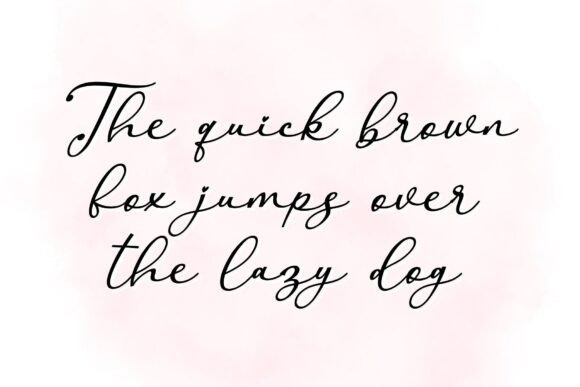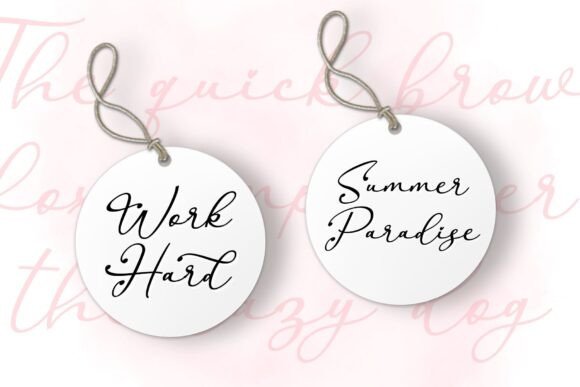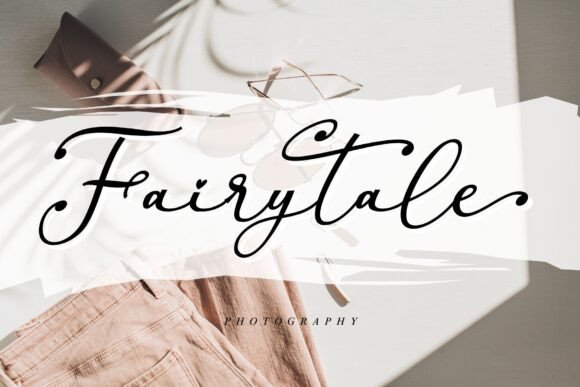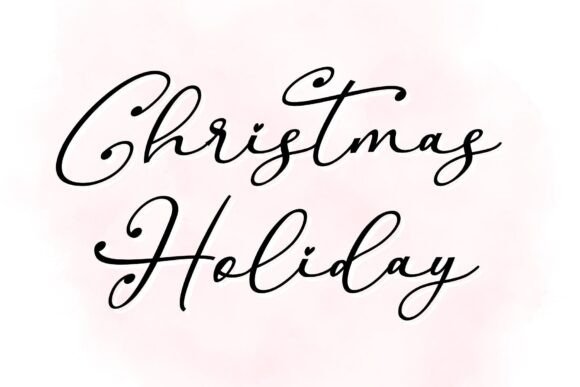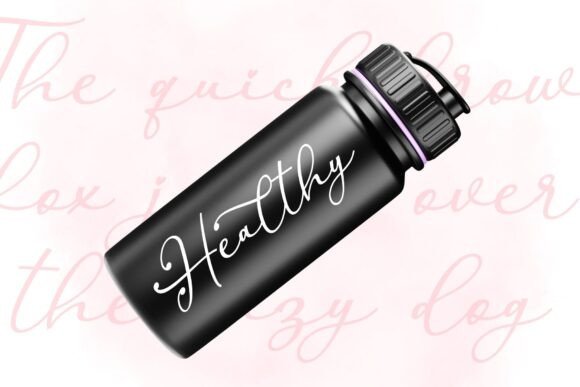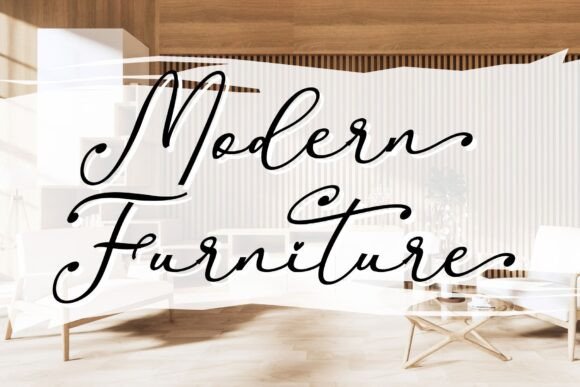
The Charm of Handwritten Fonts: Unlocking the Power of Adoretime Font
As a designer, have you ever stumbled upon a font that instantly sparks creativity and sets your imagination ablaze? For me, it was the moment I laid eyes on Adoretime Font. Its unique blend of simplicity and elegance was love at first sight, and I knew I had to learn more about this captivating handwritten font.
Adoretime Font is more than just a pretty face – it’s a versatile tool designed to cater to a broad spectrum of design requirements. Whether you’re working on a wedding invitation, a social media campaign, or a product label, Adoretime Font’s charm is sure to elevate your designs and leave a lasting impression. Its value lies in its ability to add a touch of personality and whimsy to any project, making it a must-have for designers looking to take their work to the next level.
- Unique Characteristics: This font features a unique blend of modern and vintage elements, with elegant lines, subtle flourishes, and a touch of sophistication.
Adoretime Font Review
First impressions are everything, and the Adoretime Font doesn’t disappoint ✨. The elegant, cursive design exudes a sense of sophistication and whimsy that’s perfect for branding, packaging, or any project where you want to add a touch of romance.
The font’s versatility shines through in its various styles, from Regular to Italic and Bold, offering endless possibilities for creative expression. I particularly love how the font’s flowing lines create a sense of movement and energy ✨.
While the Adoretime Font excels in many areas, there are a few limitations to consider ⚠️:
- Character Set: The font’s character set is limited, which may not be suitable for languages that require a wide range of characters.
- Legibility: At small font sizes, some letters may become difficult to read due to their flowing connections.
- Spacing: The font’s spacing can be inconsistent, which may require manual adjustments in certain designs.
Overall, the Adoretime Font is a beautiful, versatile font that’s perfect for projects where you want to add a touch of elegance and whimsy. While it has some limitations, these can be easily worked around with careful design and attention to detail.
To get the most out of Adoretime font, use it in conjunction with bold and italic styles to add emphasis to your text. You can also use the font to create a cohesive visual brand identity by applying it consistently across all your designs.
Adoretime font is commonly used in creative and artistic projects, such as:
Artistic quotes and posters
Brand identity and logo design
Photography captions and descriptions
The Adoretime Font includes a comprehensive character set, covering Latin, Cyrillic, and Greek alphabets, as well as various punctuation marks and symbols. The font also includes support for OpenType features, such as ligatures and stylistic sets.